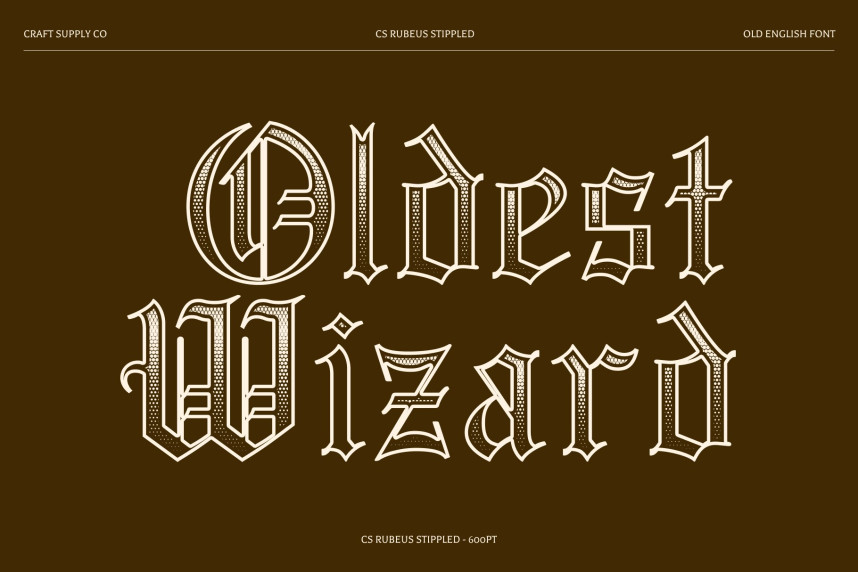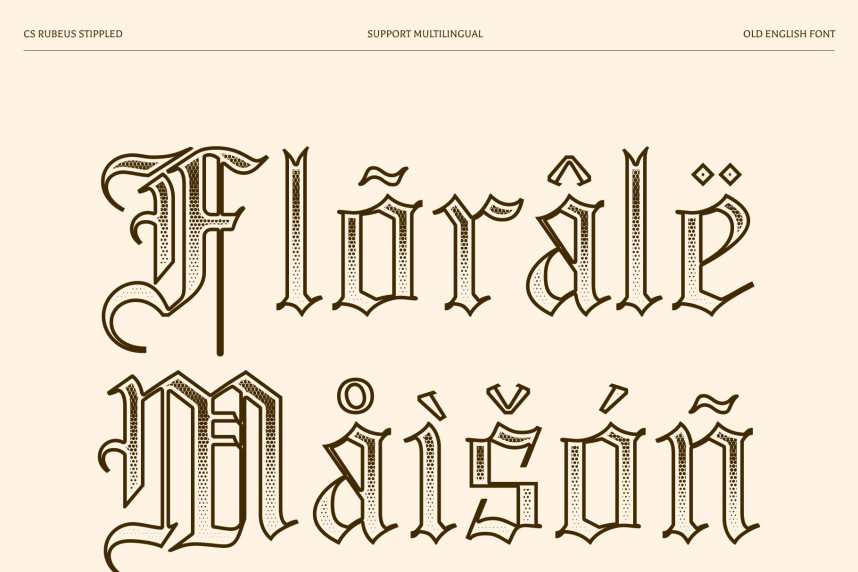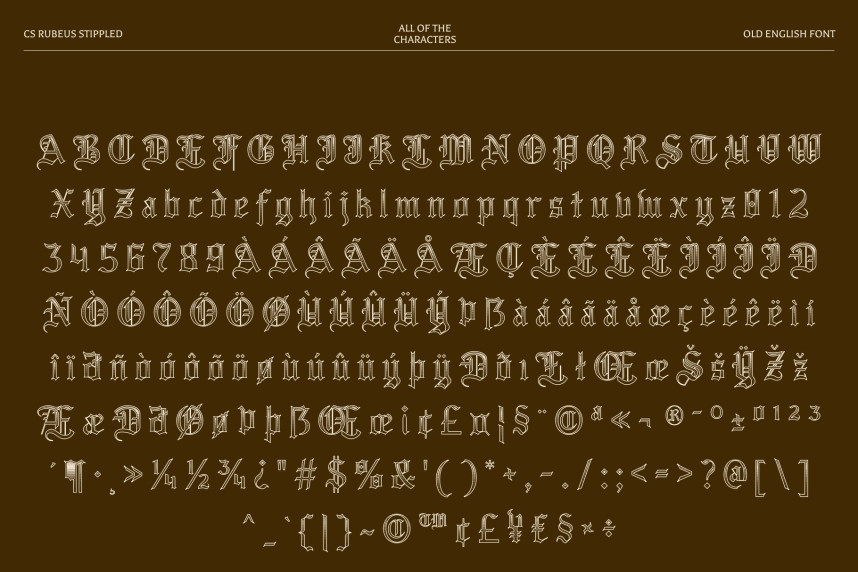
CS Rubeus Stippled Font
CS Rubeus Stippled Font – Old English Display Font
A Tribute to Medieval Elegance with Stippled Character
This is an Old English display font that beautifully captures the intricate heritage of medieval Blackletter styles, now reimagined with a distinctive dense stippled (dotwork) texture. Its bold vertical strokes and sharp angular forms remain rooted in tradition, while the hand-crafted dot pattern introduces an artistic, ink-like surface reminiscent of classical stippling illustrations and antique printmaking techniques. The result is a font that feels both historically grounded and visually expressive.